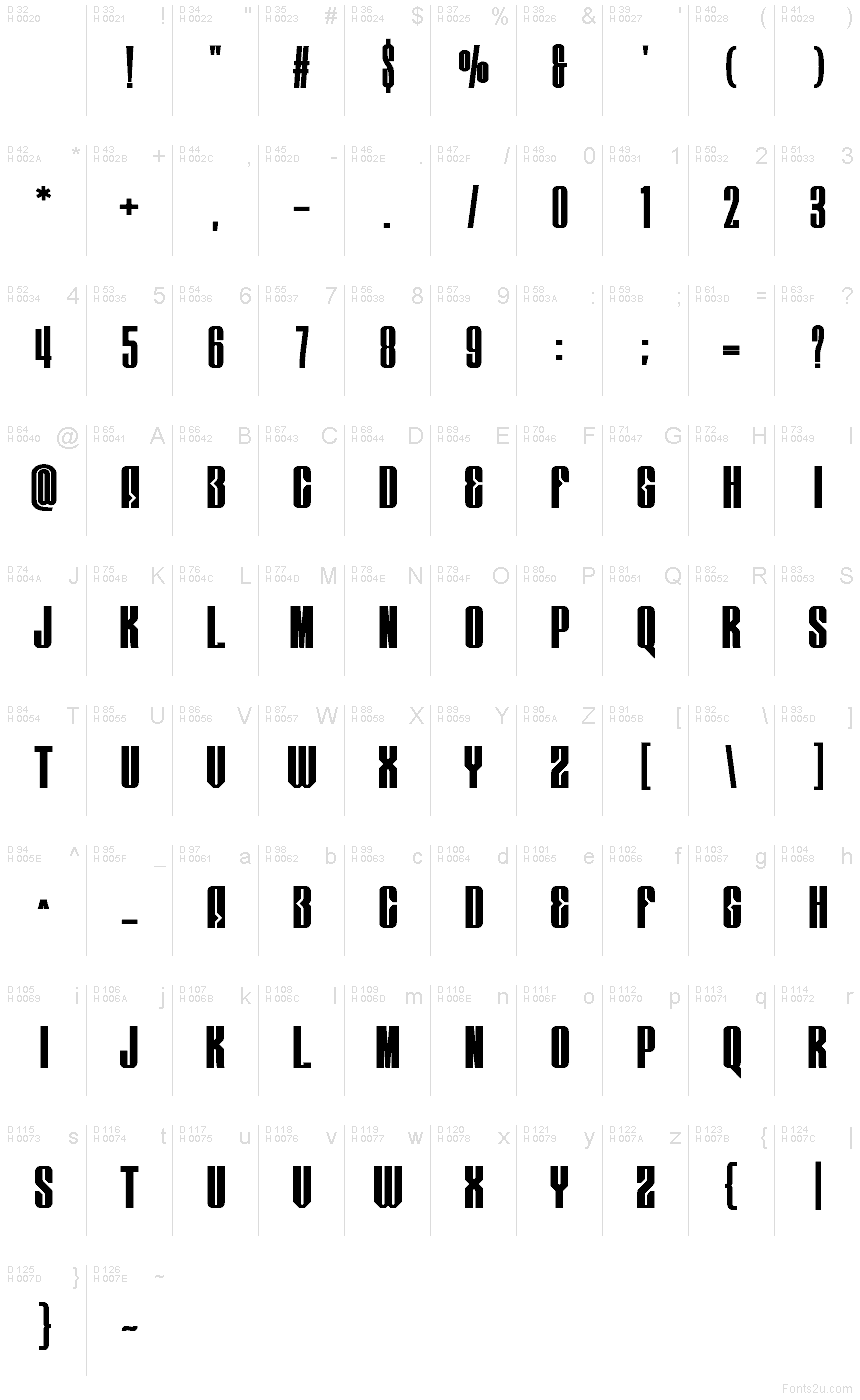
Makes font is a tall, geometric, bold aesthetic, with a futuristic feel and modernist influences in its design. The Display style font by graphicxell is bold and condensed in width. It contains a single all-uppercase character set that can make for attention-grabbing posters, signage, and magazine covers.